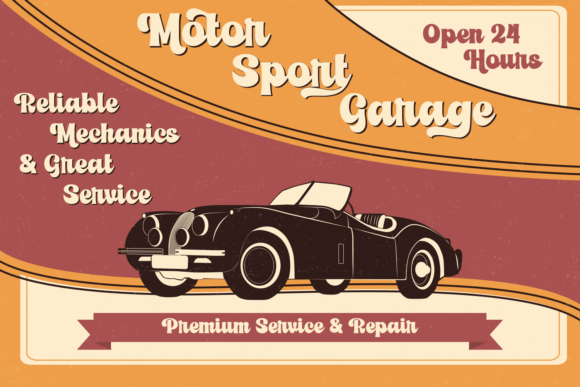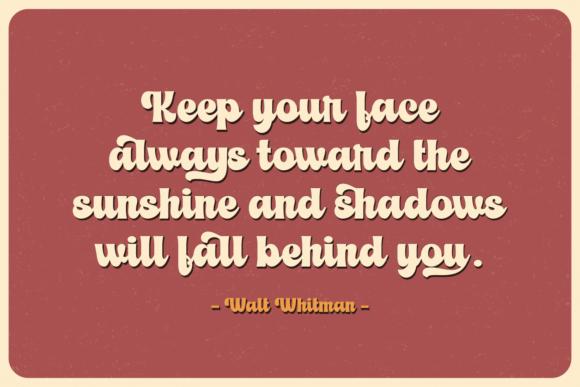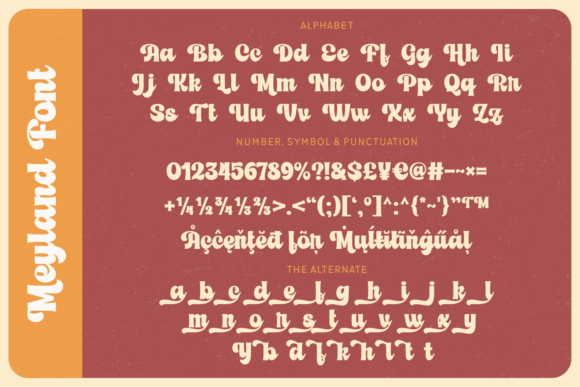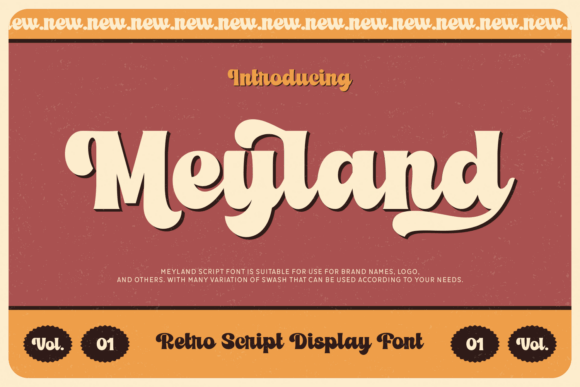
Introduction to Meyland Font
Meyland is a bold retro script display font that effortlessly channels vintage charm and nostalgia.
With its thick, flowing letterforms, playful curves, and shadowed accents, Meyland captures the spirit of mid-century design with a modern touch This versatile font is perfect for branding, posters, packaging, and any project that needs a dash of retro flair.